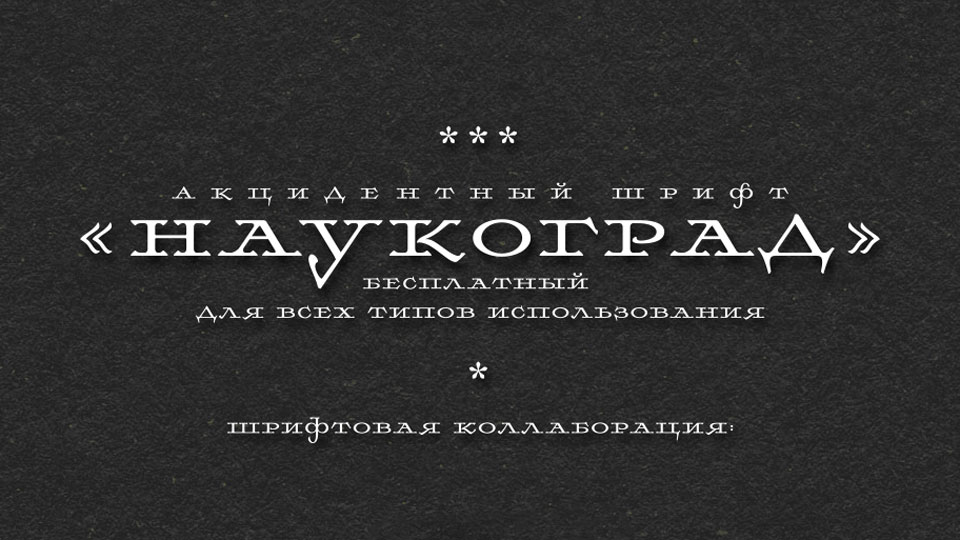
Download TD ST Naukograd font, a distinctive display typeface with a sharp, experimental character. Its angular serifs, unconventional proportions, and bold presence create a striking visual identity.
Designer: Dmitry Tektov